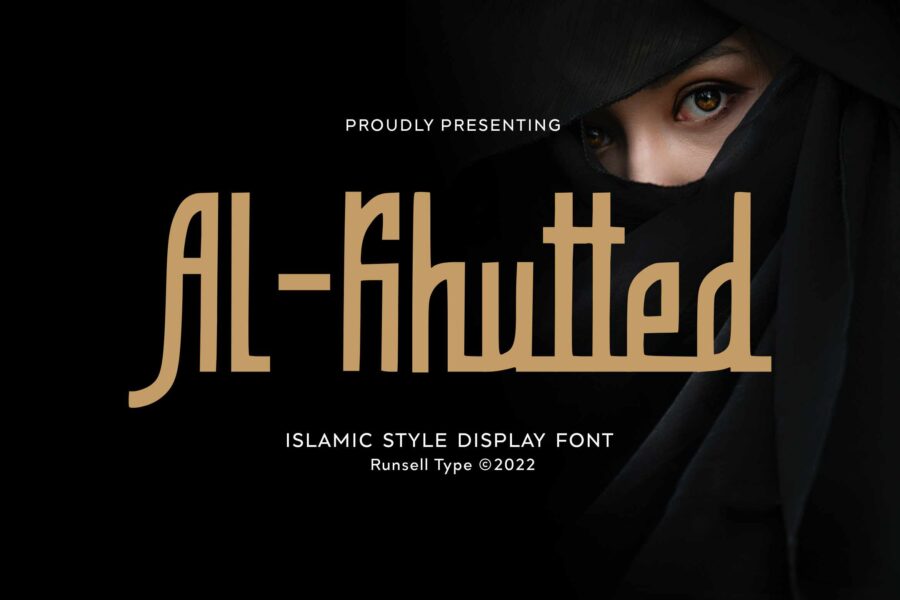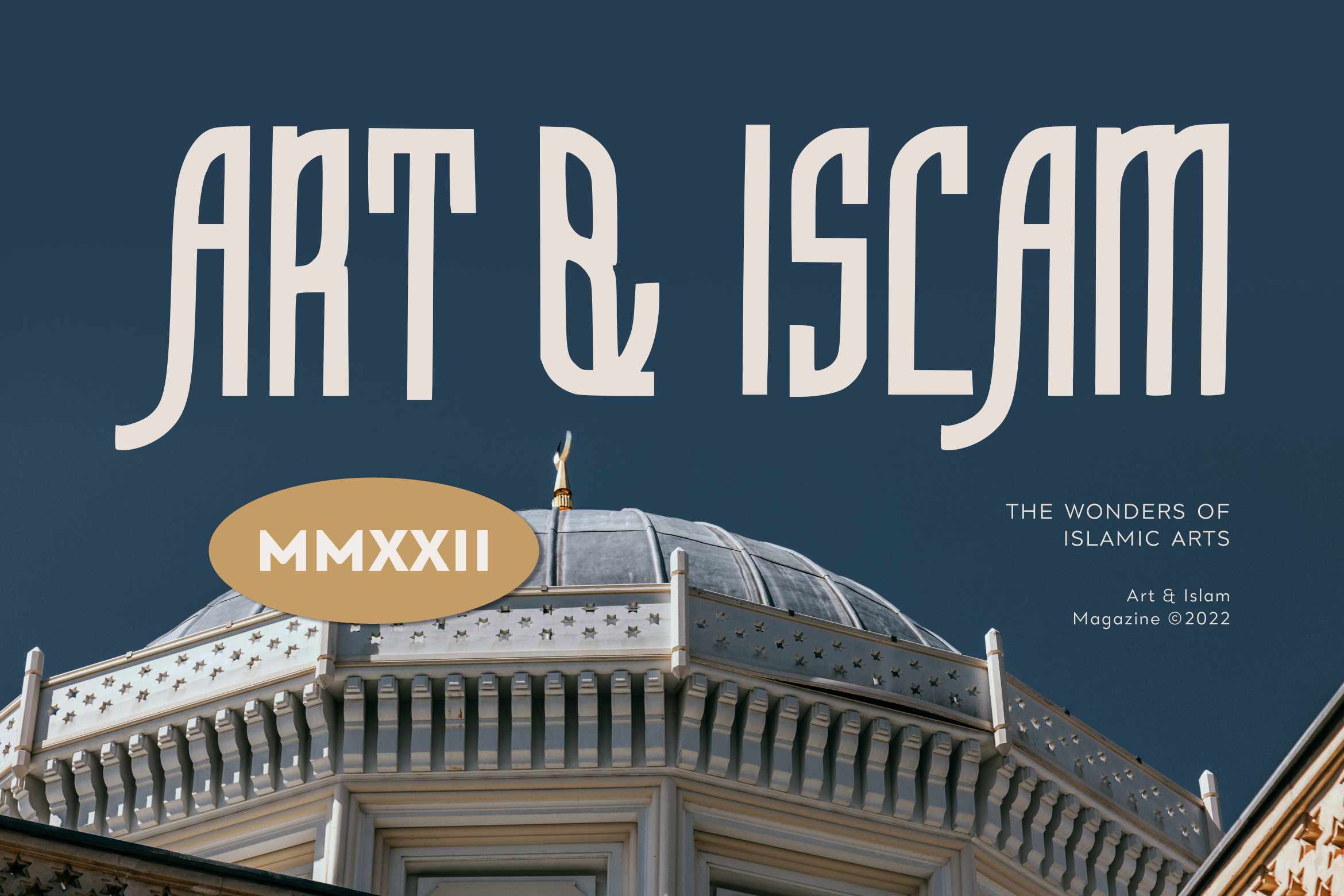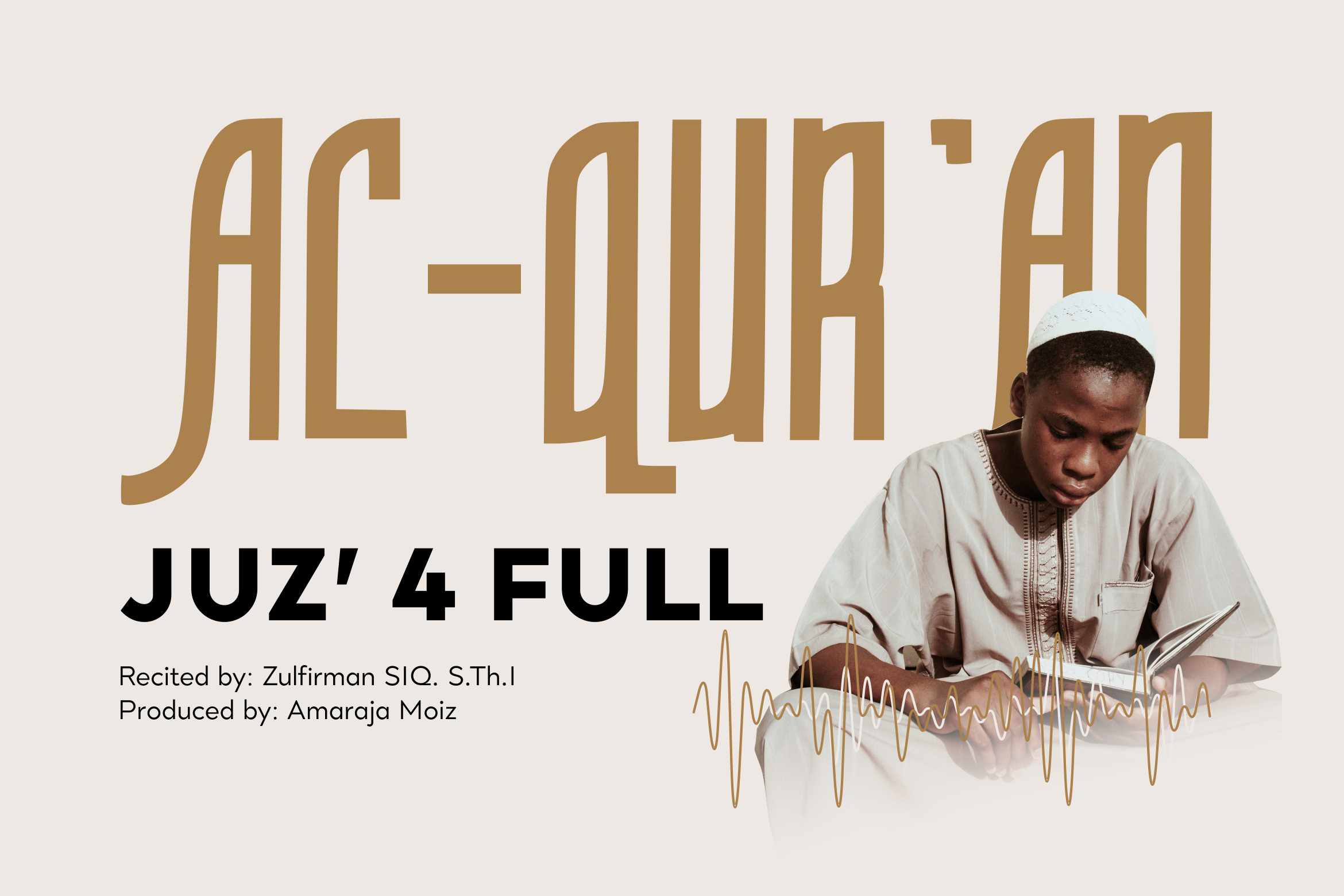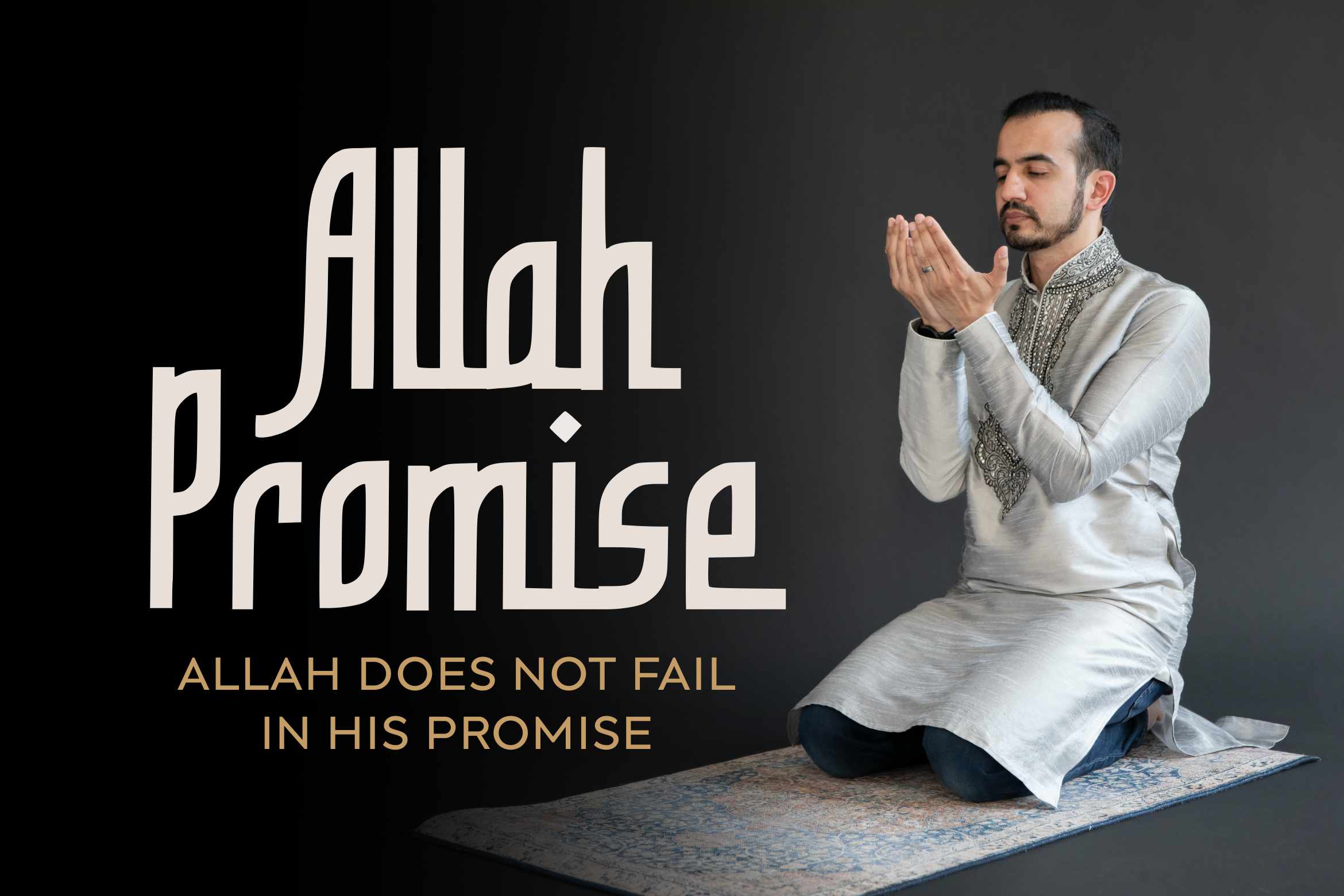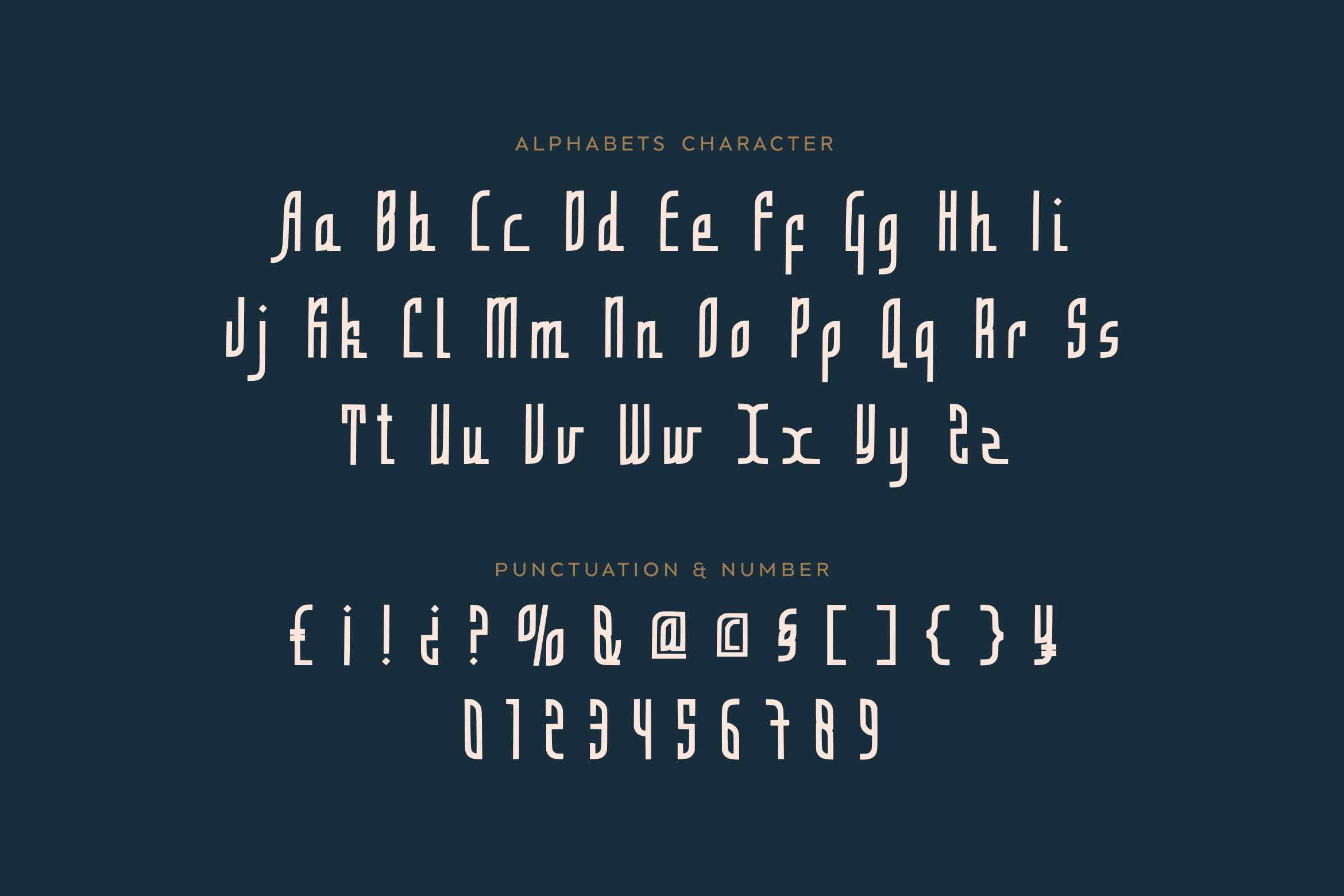
Al-Khutted is a modern Islamic display font that channels elegance through structured verticality and graceful modulation. Its tall, narrow letterforms are balanced by soft, rounded terminals, giving it a dignified yet contemporary personality. This font draws subtle inspiration from Middle Eastern calligraphy while maintaining a minimalist Latin structure, making it perfect for editorial layouts, magazine headlines, or religious branding that seeks a fusion of tradition and modernism.
Carefully designed for both visual impact and legibility, Al-Khutted includes full alphabet support, numerals, and punctuation to accommodate versatile uses. Whether it’s a Qur’an recital poster, branding for Islamic businesses, or cultural event graphics, Al-Khutted adds a unique cultural resonance with professional clarity. A refined typeface choice for designers aiming to evoke authenticity and timelessness in Islamic-themed works.
Al-Khutted